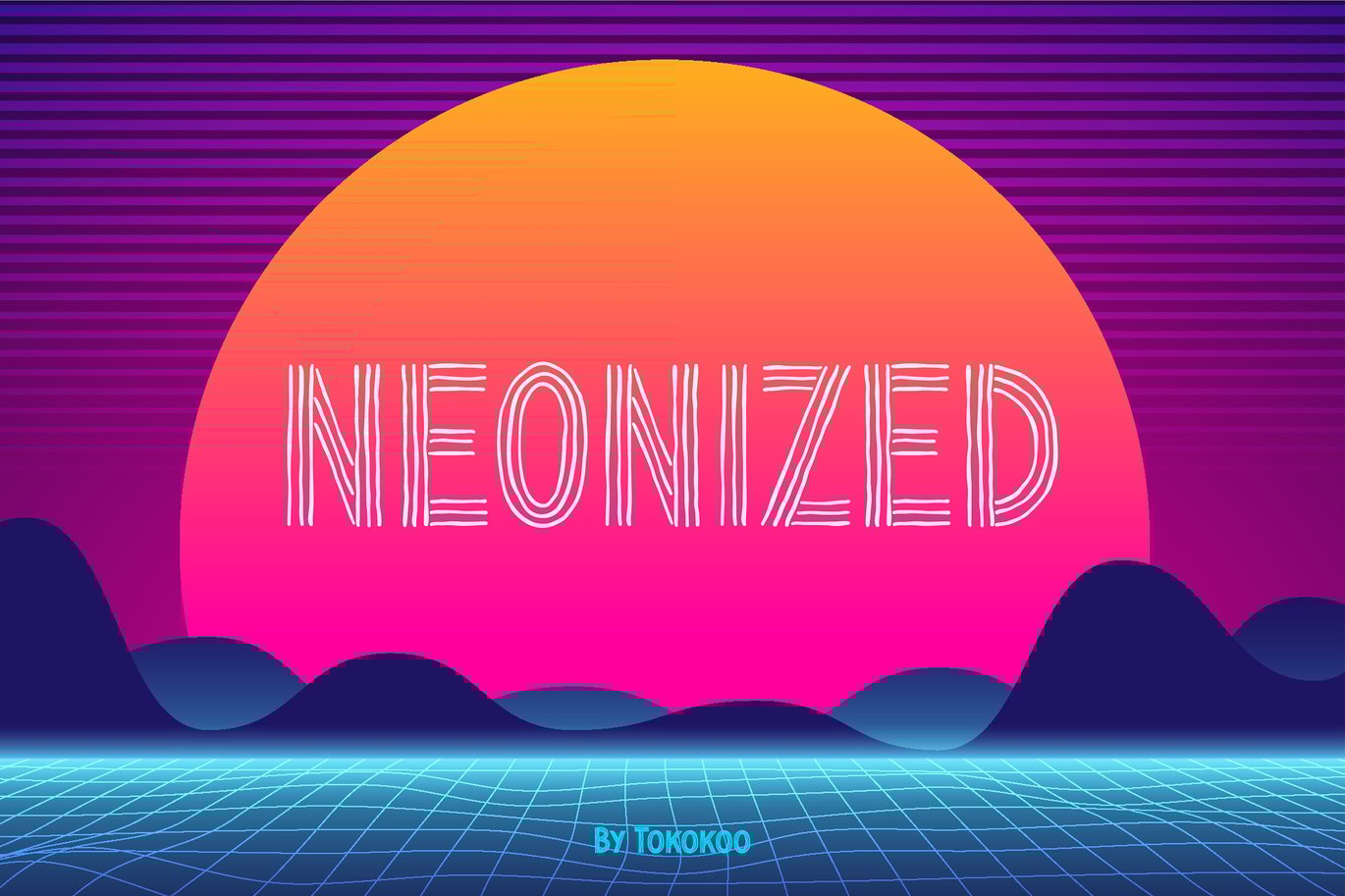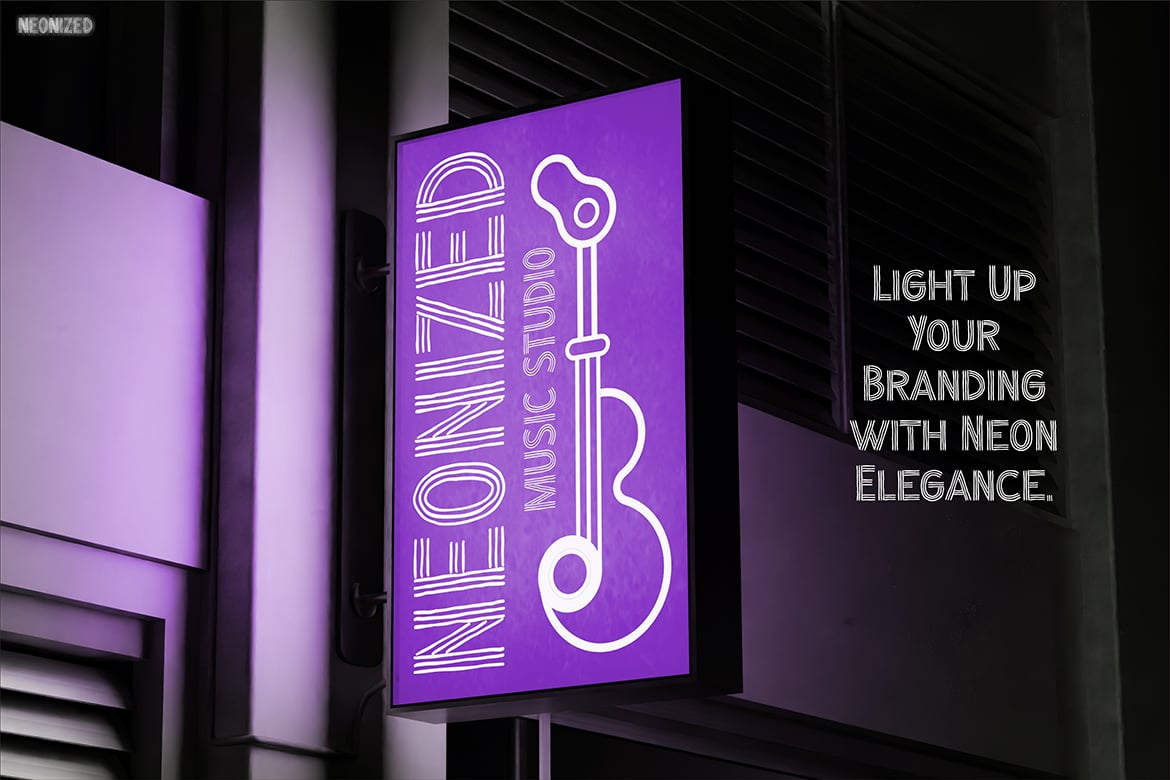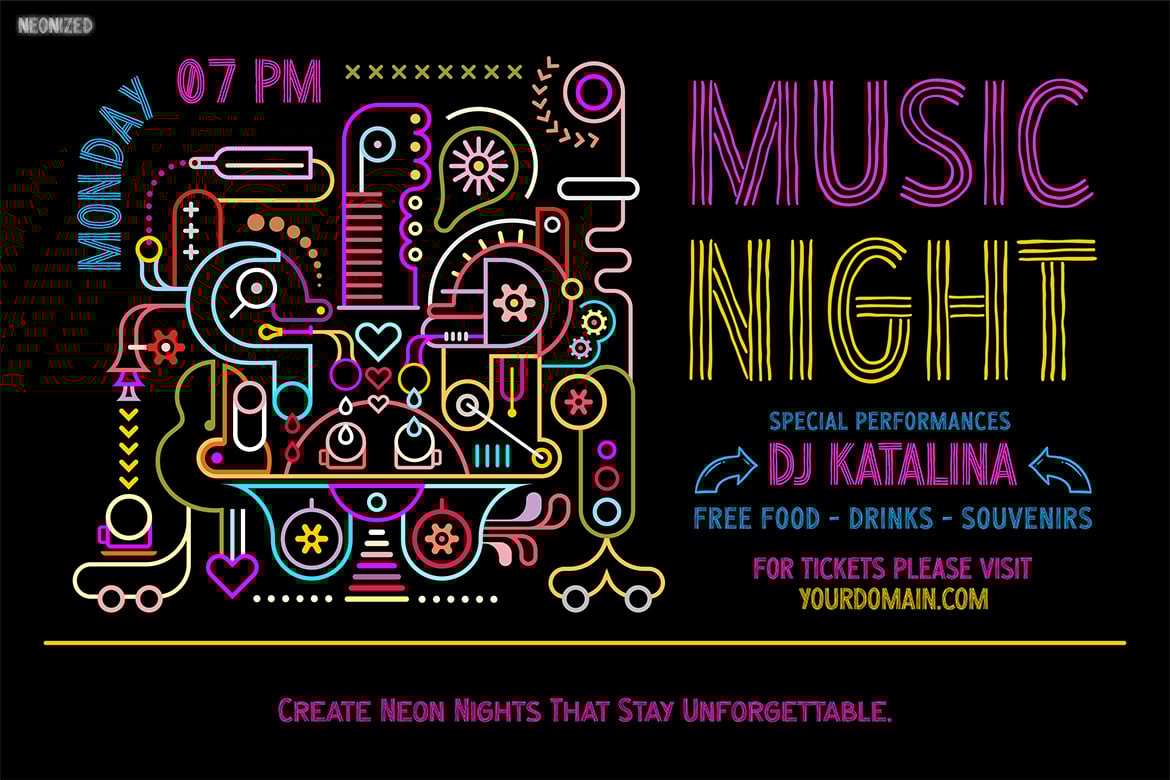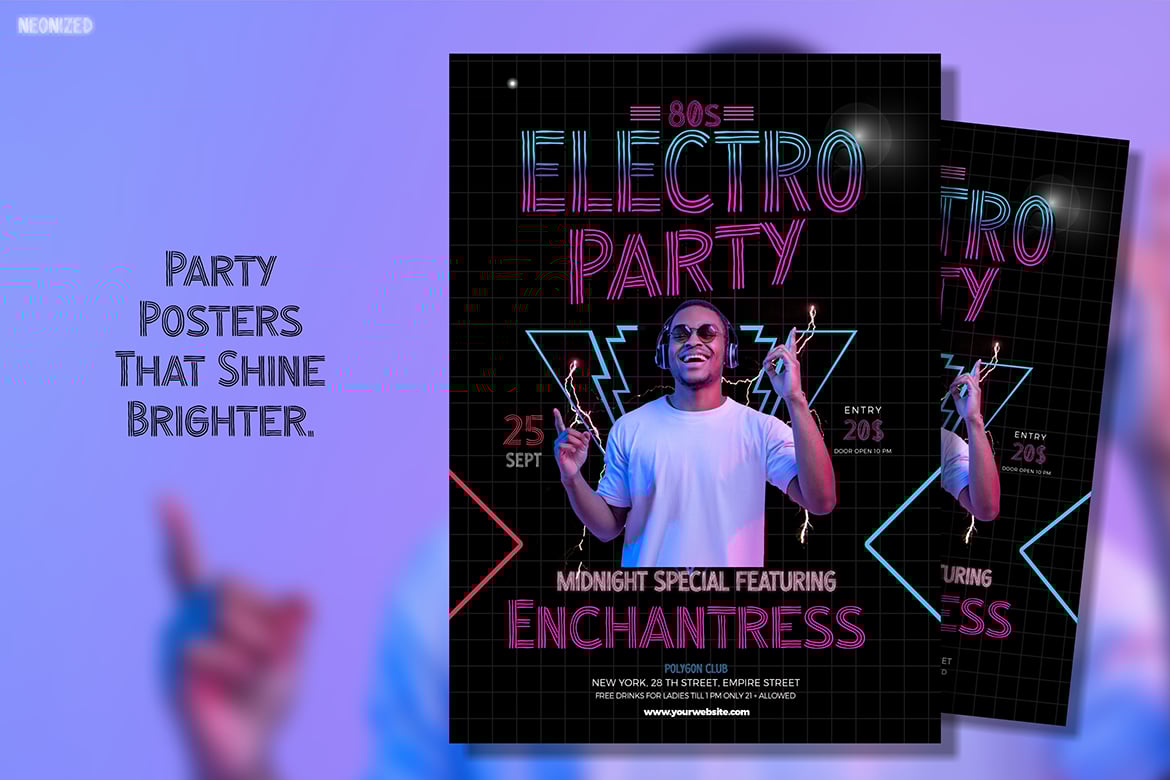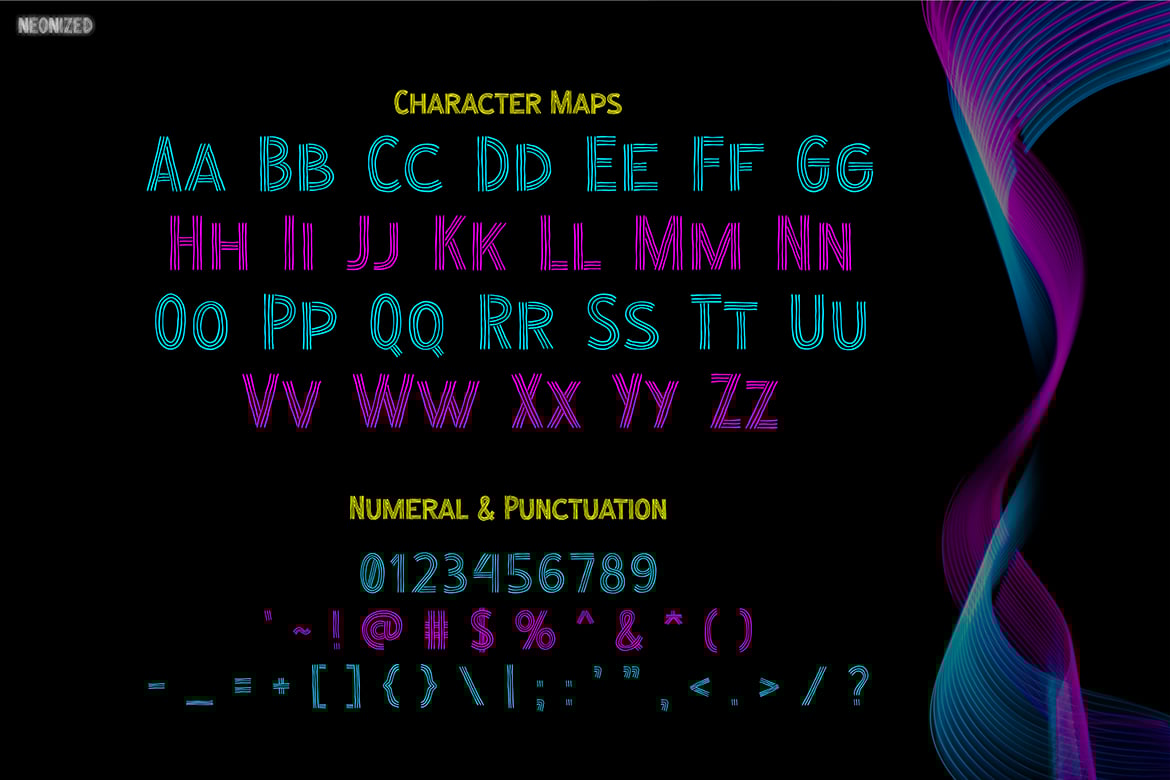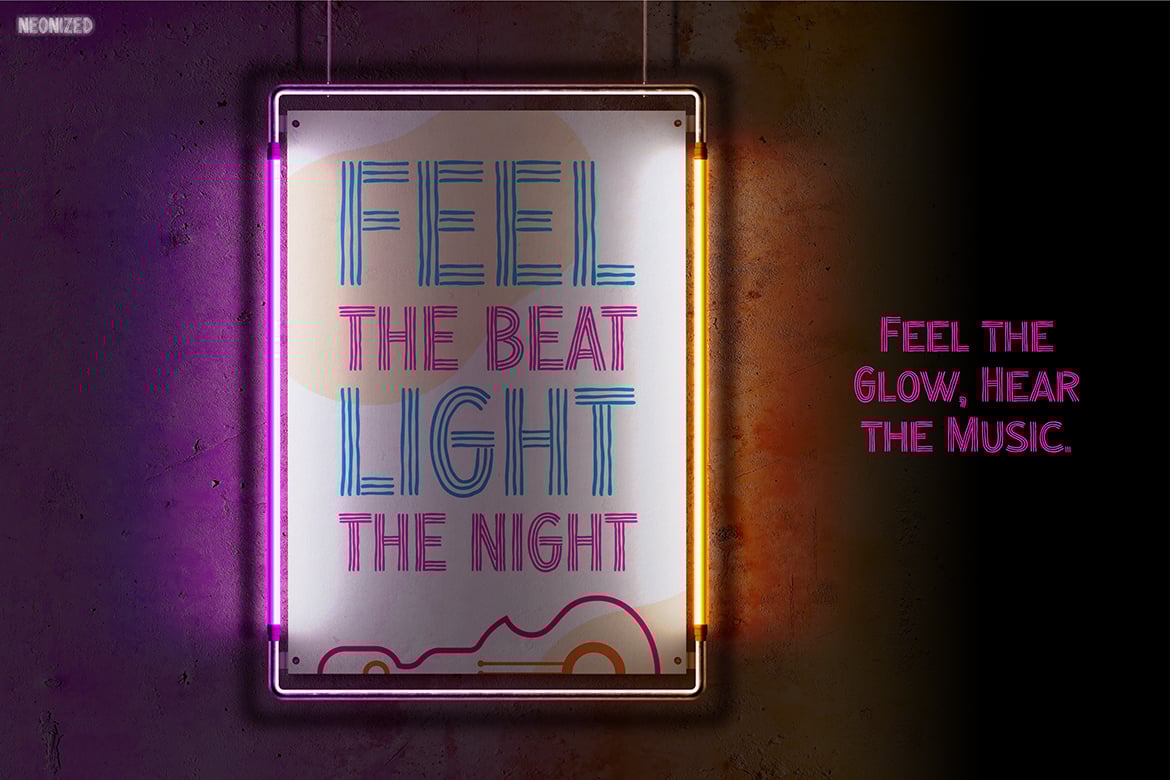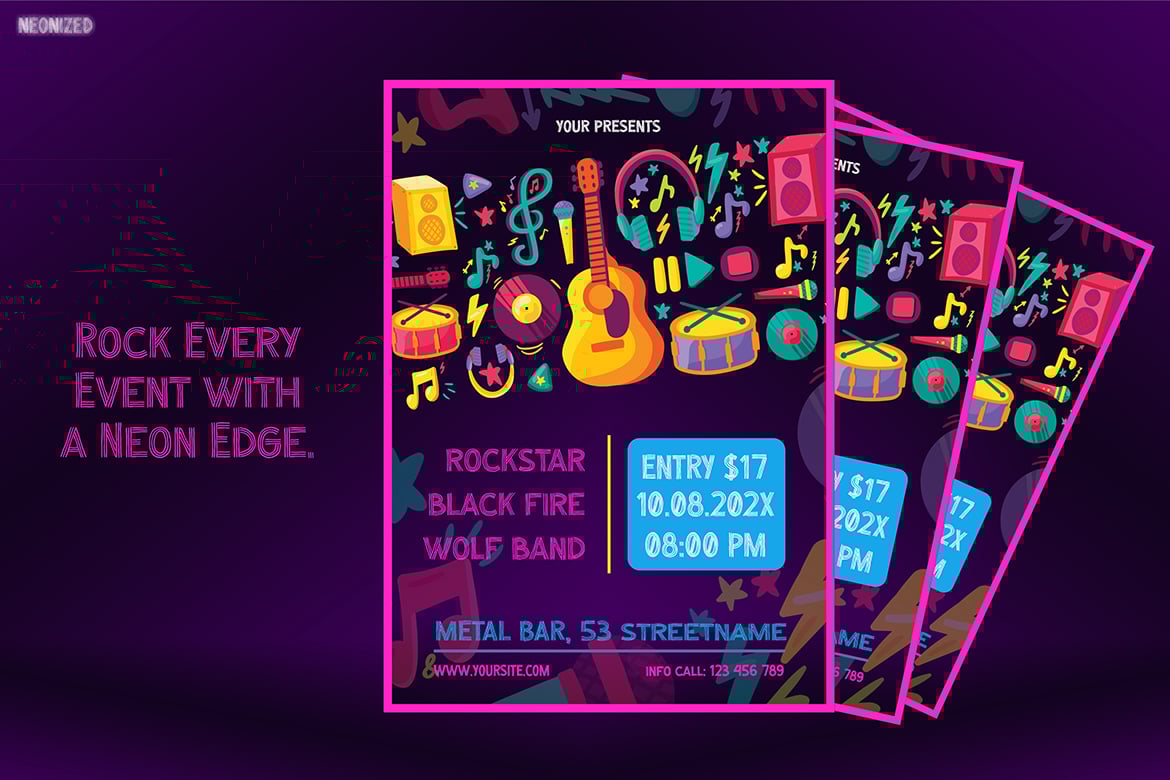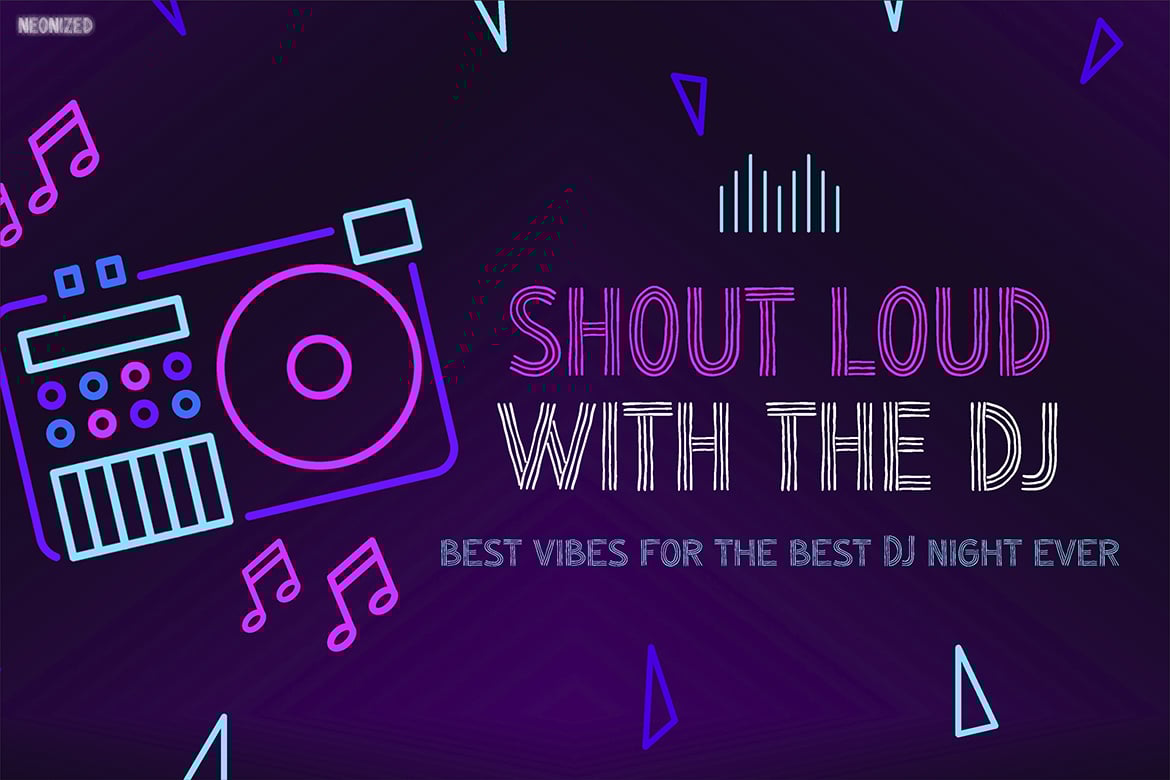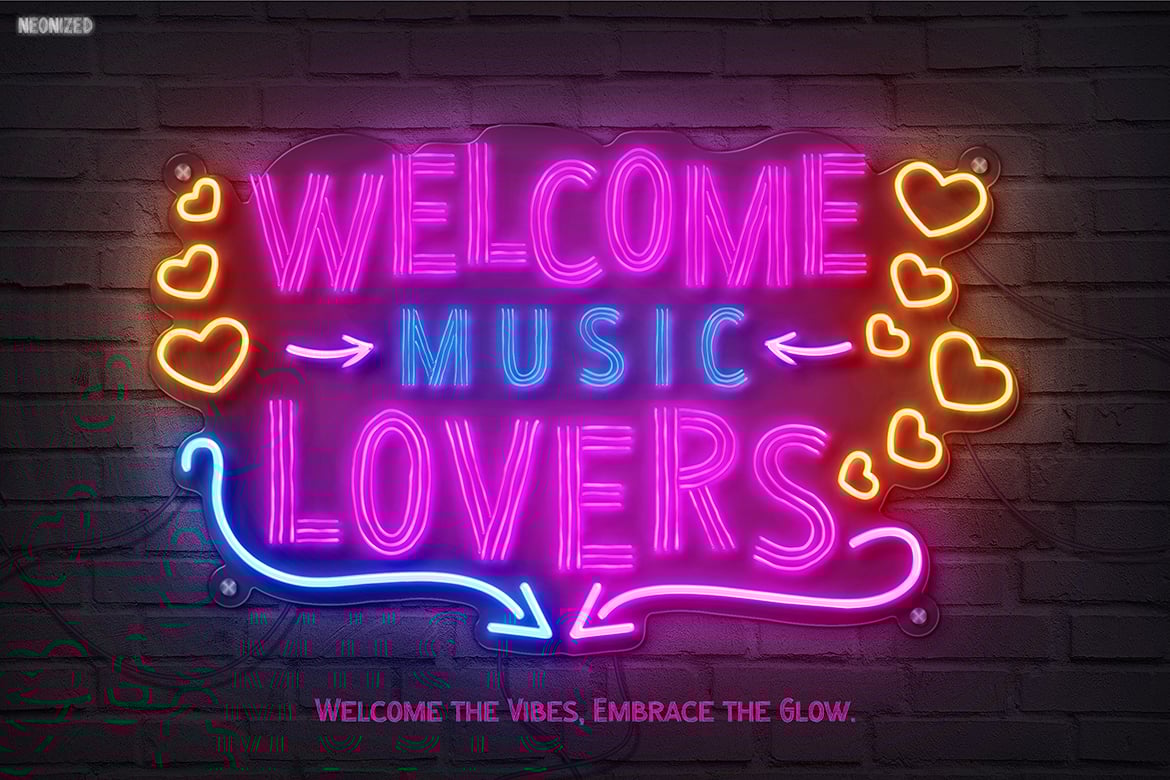
Futuristic Neon Display Font – Neonized
Step into the vibrant world of neon lights with Neonized, a futuristic display font that brings the energy of synthwave, retro-futurism, and cyber aesthetics to your designs. With its hand-drawn neon tube style, this font is perfect for music events, nightlife promotions, game branding, and digital-themed visuals. Whether you’re crafting an 80s-inspired poster, nightclub signage, or electrifying social media graphics, Neonized delivers an unmistakable glow and retro vibe that captivates.
Key Features
- Handcrafted Neon Stroke Design – Mimics real neon tubing for a glowing, dynamic feel.
- Perfect for Futuristic & Retro Aesthetics – Ideal for club flyers, music festivals, gaming logos, and cyberpunk branding.
- Vibrant & High-Impact Display – Designed to stand out in dark backgrounds and neon-lit themes.
- Versatile & Stylish – Works beautifully for posters, merchandise, digital ads, and entertainment branding.
Neonized is tailored for designers and brands who want to evoke the nostalgic, electric energy of neon-lit cityscapes. Whether you’re working on synthwave music covers, arcade-inspired visuals, or cyberpunk event promos, this font brings the night to life with its glowing aesthetic.